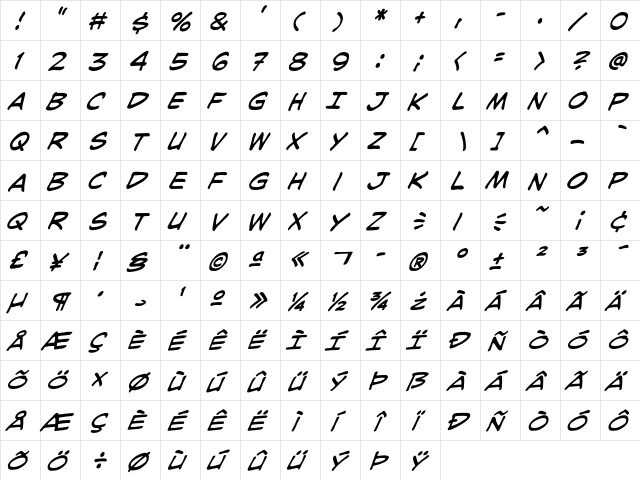
CCJoeKubert Italic
| Foundry | Active Images |
| Designer | John 'JG' Roshell |
Design Context for CCJoeKubert Typeface
CCJoeKubert is a composed and adaptable typeface that performs quietly and consistently across a wide range of design contexts. Its italic angle brings a sense of urgency and motion to the letterforms.
Pro Tip: Try CCJoeKubert for annotation and caption copy alongside an upright companion — the contrast in angle creates a dynamic but ordered typographic system.